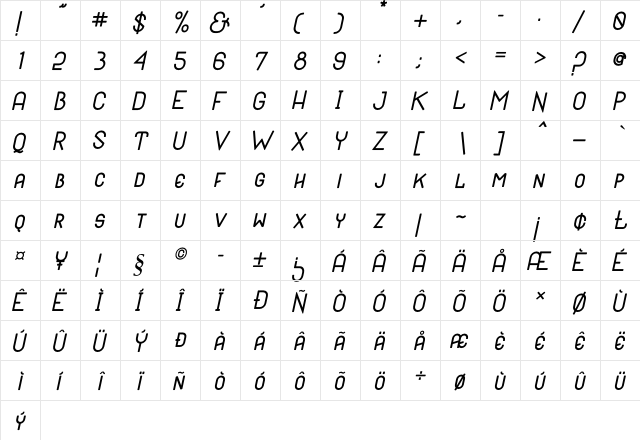
Black Hole Italic Italic
Design Context for Black Hole Italic Typeface
Black Hole Italic is a composed and adaptable typeface that performs quietly and consistently across a wide range of design contexts. Its italic angle brings a sense of urgency and motion to the letterforms.
Pro Tip: Try Black Hole Italic for annotation and caption copy alongside an upright companion — the contrast in angle creates a dynamic but ordered typographic system.